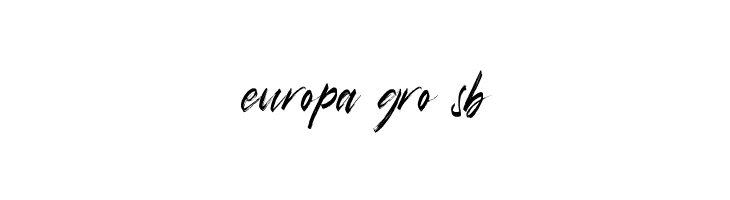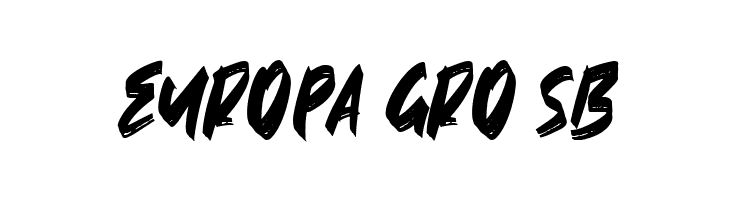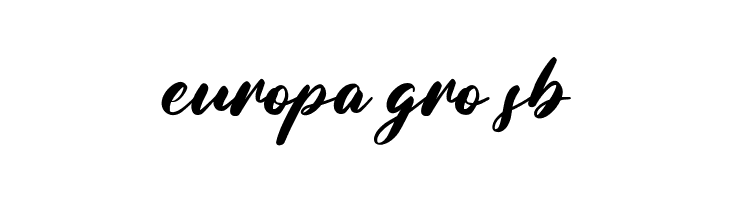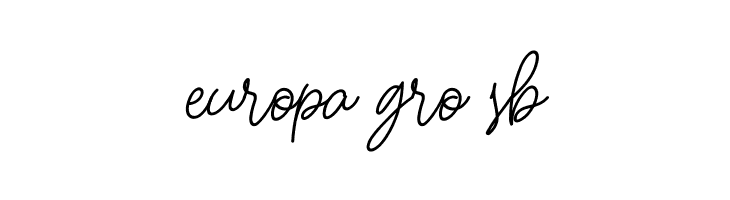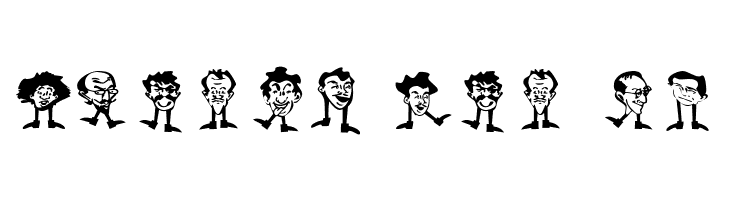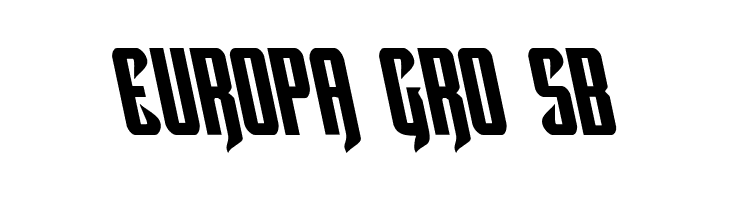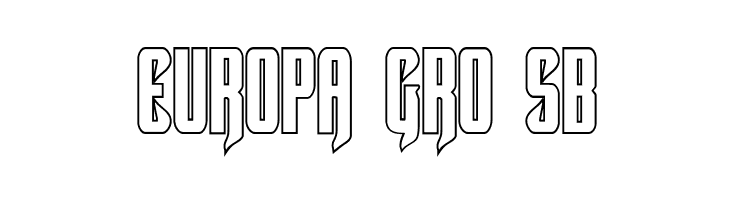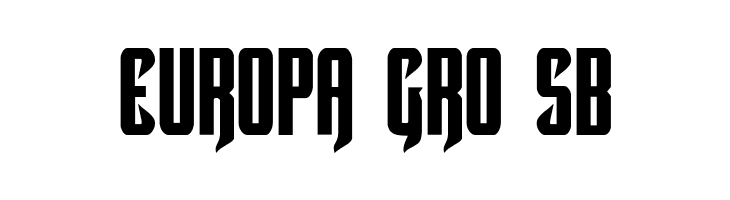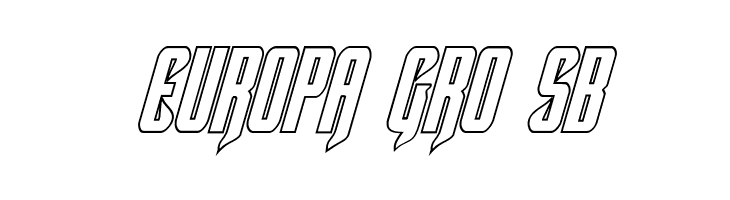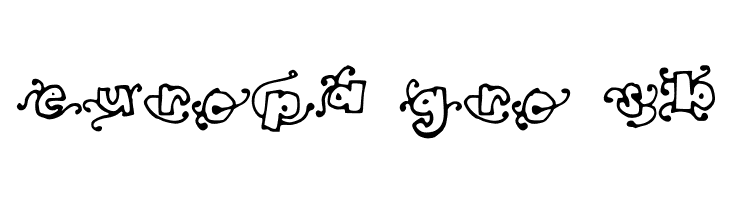
A bold, angular font with a modern twist on traditional styles.
A dynamic, cursive font with bold strokes and high contrast, perfect for artistic projects.
A flowing, cursive font with elegant, connected strokes and medium contrast.
A flowing, cursive script font with elegant, continuous strokes.
A dynamic and expressive script font with fluid, flowing letterforms.
A fluid and elegant cursive script font with a handwritten style.
A bold, 3D font with angular, shadowed characters.
A bold, brush-style font with dynamic and expressive strokes.
A bold, italicized 3D font with a modern, angular design.
A bold, geometric 3D font with a modern and dynamic style.
A bold, italic, and dynamic font with a modern, edgy style.
A bold, outlined font with a geometric, three-dimensional style.
A bold, condensed font with a strong, geometric style.
A bold, condensed, and italic font with a dynamic and modern style.
A bold, Gothic-inspired font with sharp angles and dramatic presence.
A bold, expanded italic font with a modern and dynamic style.
A bold, extra-expanded decorative font with angular, geometric shapes.
A bold, extra-expanded italic font with a modern, dynamic style.
A bold, italic font with sharp angles and high contrast, perfect for dynamic designs.
A bold, left-slanted font with a dynamic and energetic style.
A bold, geometric font with tall, narrow characters and sharp angles.
A bold, slanted font with a dynamic and modern geometric style.
Bold, italicized font with a shadow effect and dynamic style.
A bold, geometric font with a shadow effect for a modern, 3D look.
Portrait-based dingbat font with stylized black-and-white faces.
Portrait-based decorative dingbat font with high-contrast illustrations.
A decorative and abstract font with characters in circular shapes, featuring geometric patterns.
A quirky cartoon-style display font with each character as a caricature.
Playful dingbat font with object-headed stick figures.
A decorative and abstract font with characters in circular shapes, featuring bold and artistic designs.
An abstract, artistic font with characters enclosed in circular shapes, featuring unique geometric and illustrative designs.
A playful, cloud-inspired decorative font with bold, rounded characters.
Cartoonish, illustrative font made of quirky character drawings.
Hand-drawn, abstract font made of expressive face sketches.
Abstract, face-themed decorative font with geometric shapes.